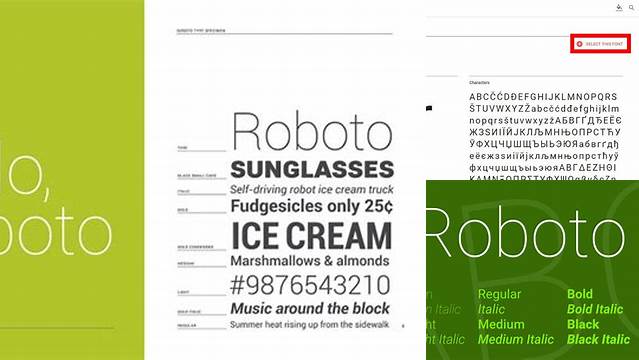
Roboto Font: How To Use Google Fonts CSS2 Family
Hey guys! Ever wondered how to make your website look super sleek and professional? One of the easiest ways is by using the right fonts. And guess what? Google Fonts has a fantastic option called Roboto. In this article, we're diving deep into how you can use the link href="https://fonts.googleapis.com/css2?family=Roboto"
to bring this awesome font to your web projects. So, buckle up and let's get started!
What is Roboto Font?
First things first, what exactly is Roboto? Roboto is a sans-serif font family that Google developed. It's designed to be modern, approachable, and highly readable across various devices and screen sizes. Think of it as the workhorse of the web – versatile, reliable, and always stylish. Roboto is the default font for Android and many Google products, so you’ve probably seen it around. Its clean lines and geometric forms make it perfect for body text, headlines, and even UI elements. Seriously, it’s a font that works in almost any context. Plus, with multiple weights and styles available, you have a ton of flexibility in how you use it.
Roboto’s versatility is one of its biggest strengths. Whether you're designing a minimalist blog, a corporate website, or a vibrant e-commerce platform, Roboto can fit right in. It pairs well with a variety of other fonts, so you can create some really interesting typographic combinations. For example, try pairing Roboto with a serif font like Merriweather for a classic contrast, or use it alongside a script font like Pacifico for a more playful vibe. The possibilities are endless, guys! When you start experimenting with different weights and styles, you'll see just how much you can do with this font. And trust me, having a solid grasp on typography can take your designs to the next level. It's not just about choosing a font that looks good; it's about creating a visual hierarchy, establishing a tone, and making your content more engaging for your audience. Roboto helps you achieve all of that and more.
Why Use Google Fonts?
How to Link Roboto from Google Fonts
Customizing Roboto: Weights and Styles
Okay, guys, here’s where it gets really fun! Roboto isn't just one font; it's a whole family. And you can customize it to fit your exact needs by using different weights and styles. Think of it like choosing different flavors of ice cream – you've got a bunch of options! Roboto comes in a range of weights, from thin (100) to black (900), and includes styles like italic and condensed. This gives you a ton of flexibility in how you use the font. To include different weights and styles, you need to modify the href
attribute in your <link>
tag. For example, to include Roboto in regular (400), bold (700), and italic styles, you’d use something like this:
<link href="https://fonts.googleapis.com/css2?family=Roboto:wght@400;700&ital=1" rel="stylesheet">
Let's break this down. The :wght@400;700
part specifies that you want the 400 (regular) and 700 (bold) weights. The &ital=1
part indicates that you want the italic style. You can combine multiple weights and styles by separating them with semicolons. It's like mixing and matching your favorite toppings on a pizza! Once you've linked the specific weights and styles you want, you can use them in your CSS like this:
h1 {
font-family: 'Roboto', sans-serif;
font-weight: 700; /* Bold */
}
p {
font-family: 'Roboto', sans-serif;
font-style: italic; /* Italic */
}
By customizing the weights and styles, you can create a much more dynamic and engaging typographic system. It allows you to create visual hierarchy, emphasize important information, and add personality to your designs. Experiment with different combinations and see what works best for your project. You might be surprised at the variety you can achieve with just one font family!
to bring the awesome Roboto font into your web projects. We've covered what Roboto is, why Google Fonts is a fantastic resource, how to link Roboto in your HTML, how to customize it with different weights and styles, best practices for using Google Fonts, and even some alternatives to explore. Roboto is a versatile and powerful font that can elevate the look and feel of your website. By following the tips and techniques we've discussed, you can make sure your website not only looks great but also performs well. Remember, typography is a crucial part of web design. Choosing the right font can make a huge difference in how your content is perceived. So, take the time to experiment, learn, and find the fonts that best represent your brand and message. And most importantly, have fun with it! Web design is a creative process, so don’t be afraid to try new things and push the boundaries. With Roboto in your toolkit, you’re well-equipped to create stunning and engaging websites. Now go out there and make something amazing!